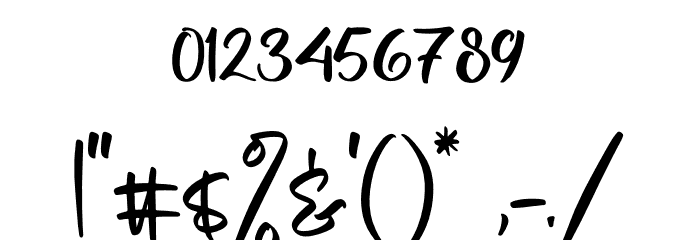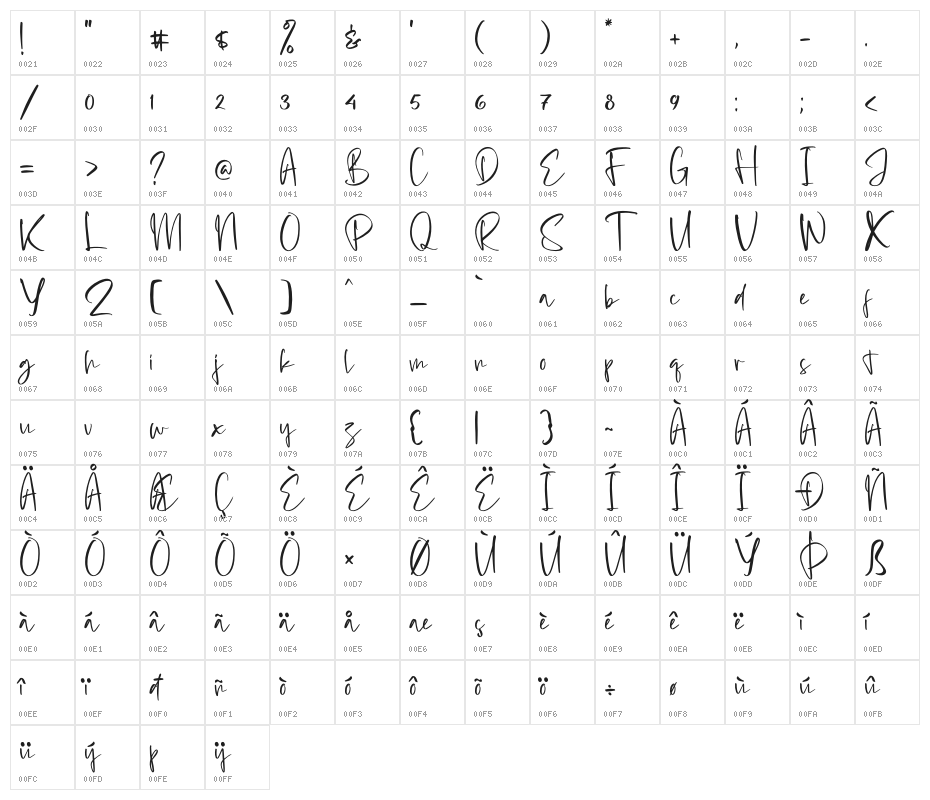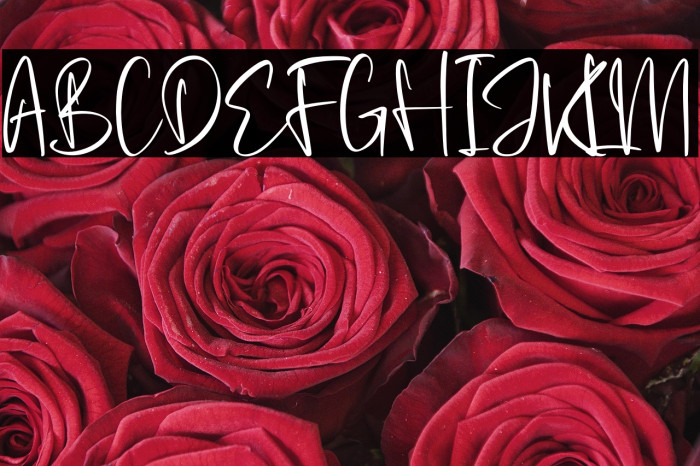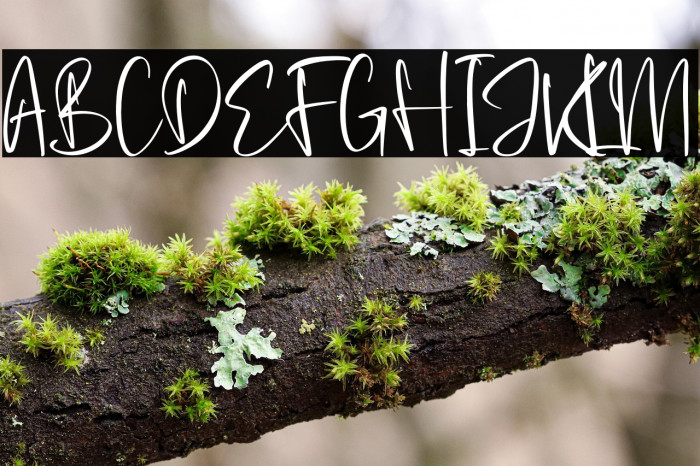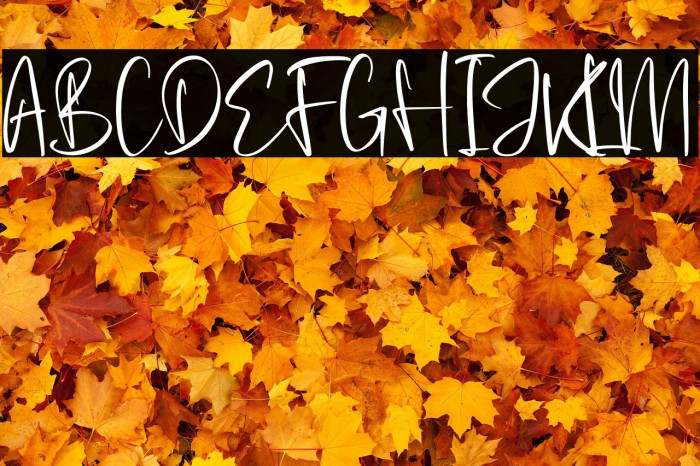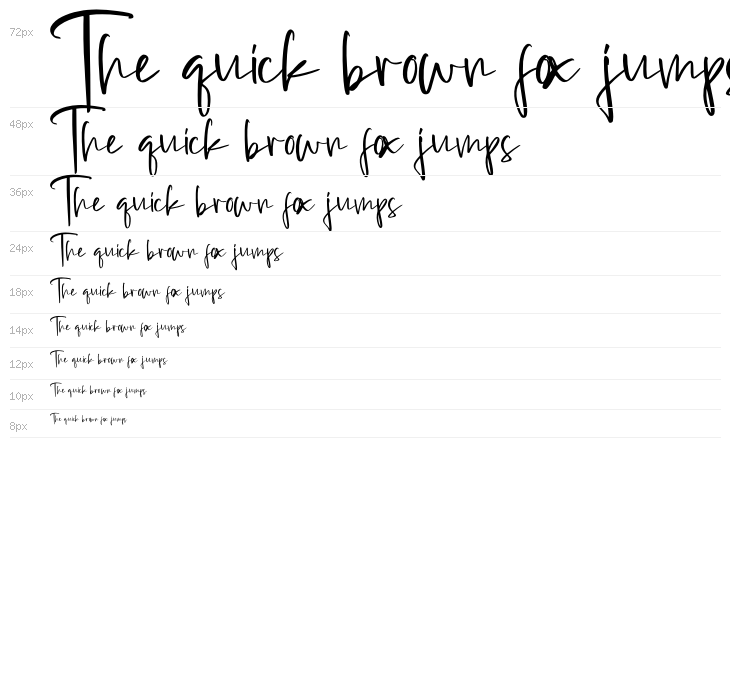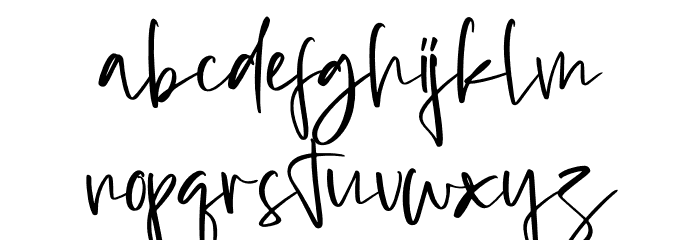
Prilistale Font
Prilistale Description
This font features a dynamic and expressive handwritten style, characterized by its fluid, cursive strokes and varying line thickness. The uppercase letters are bold and prominent, with a playful yet sophisticated flair, while the lowercase letters maintain a consistent flow that enhances readability. Numbers and special characters are crafted with the same artistic touch, ensuring a cohesive look across all elements. The overall design exudes a sense of creativity and spontaneity, making it ideal for projects that require a personal and artistic touch.